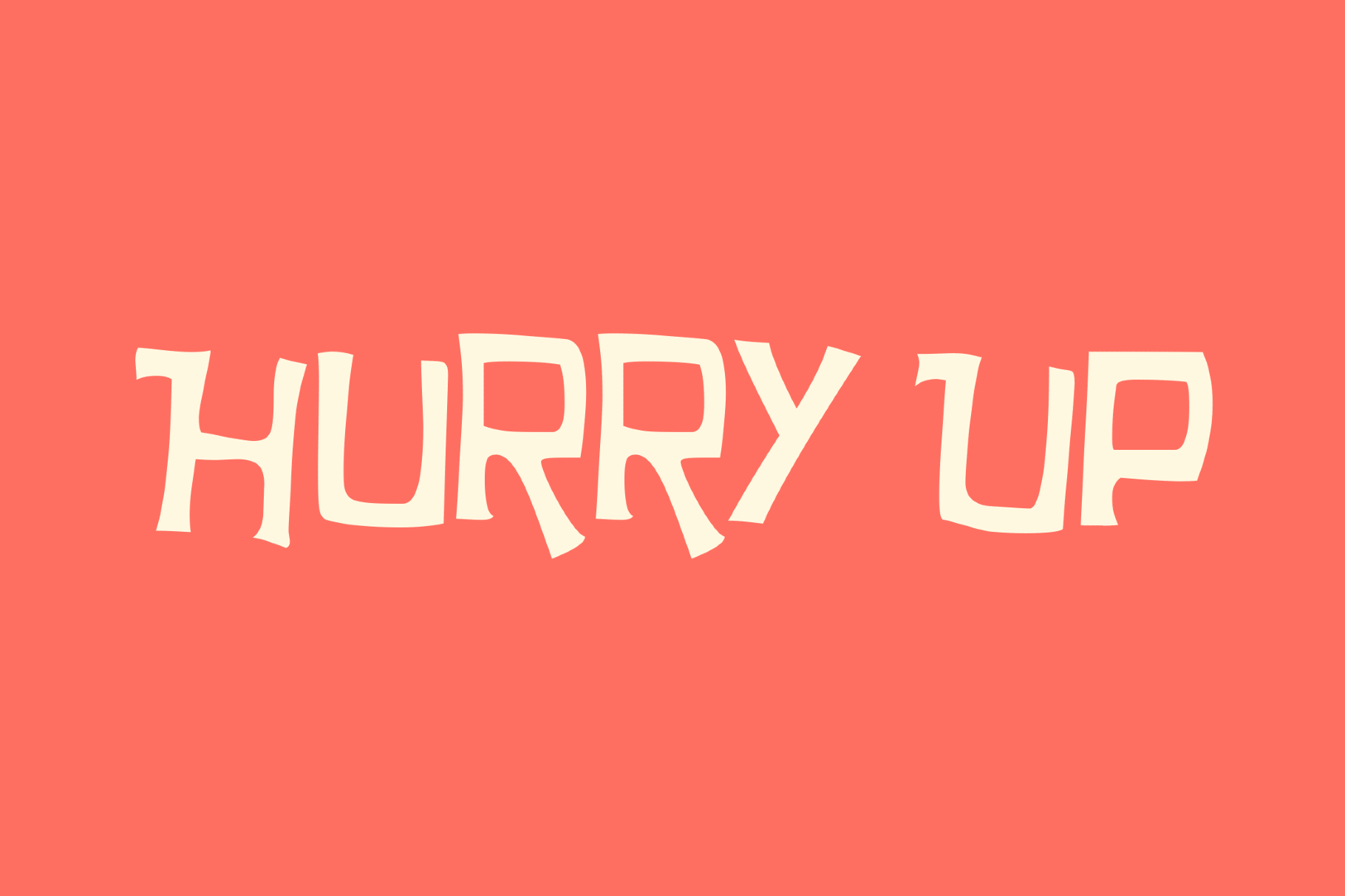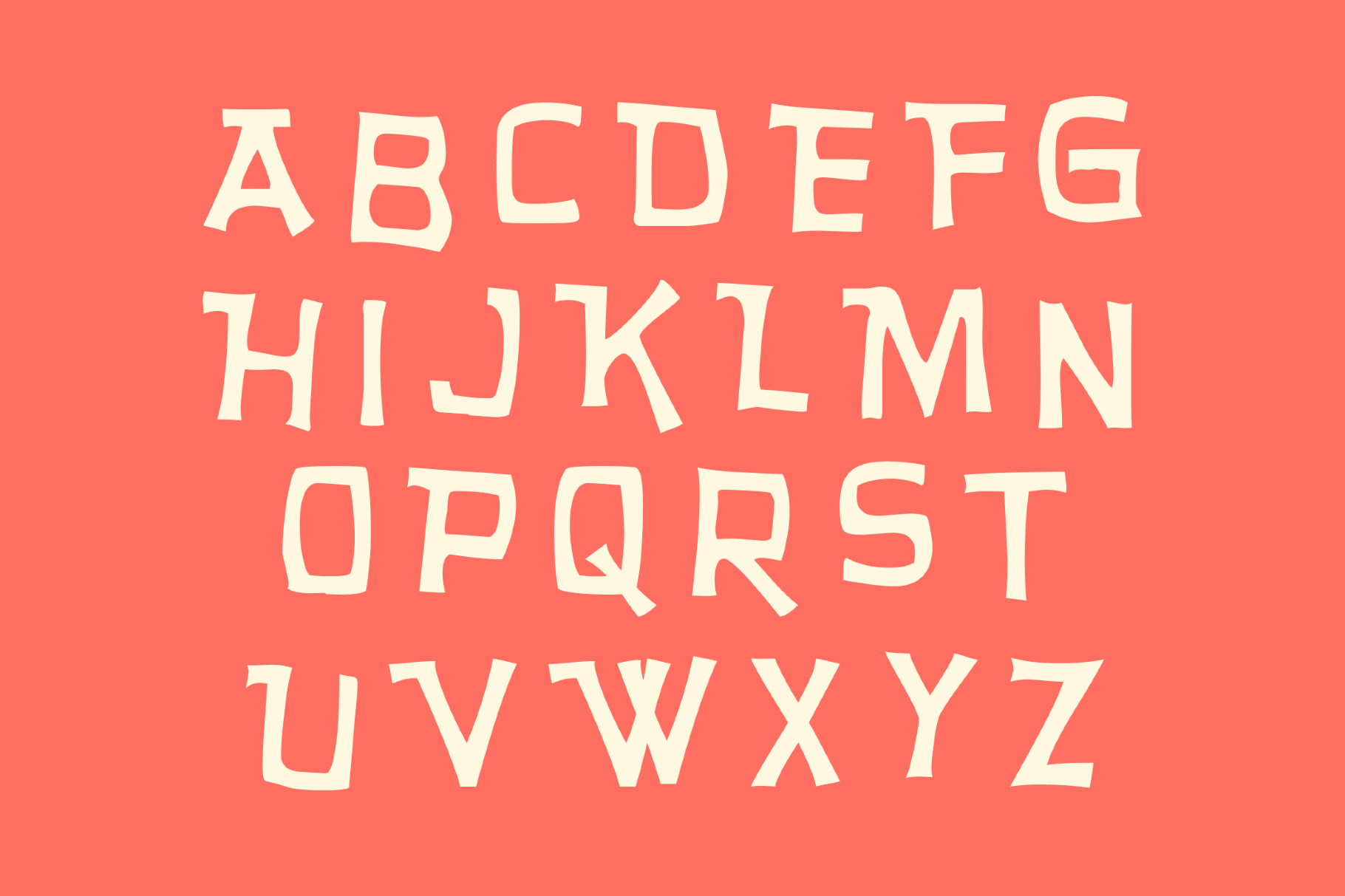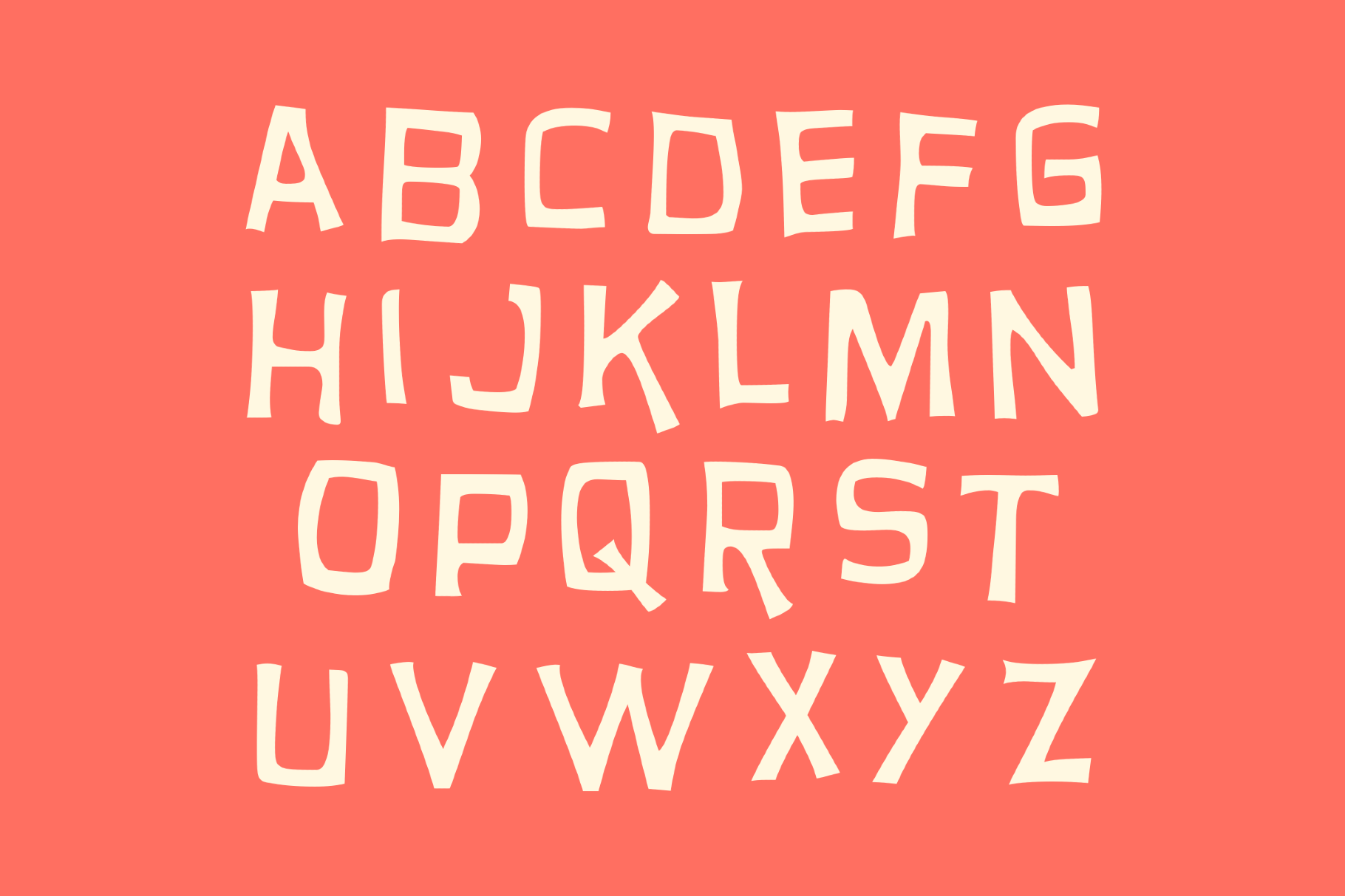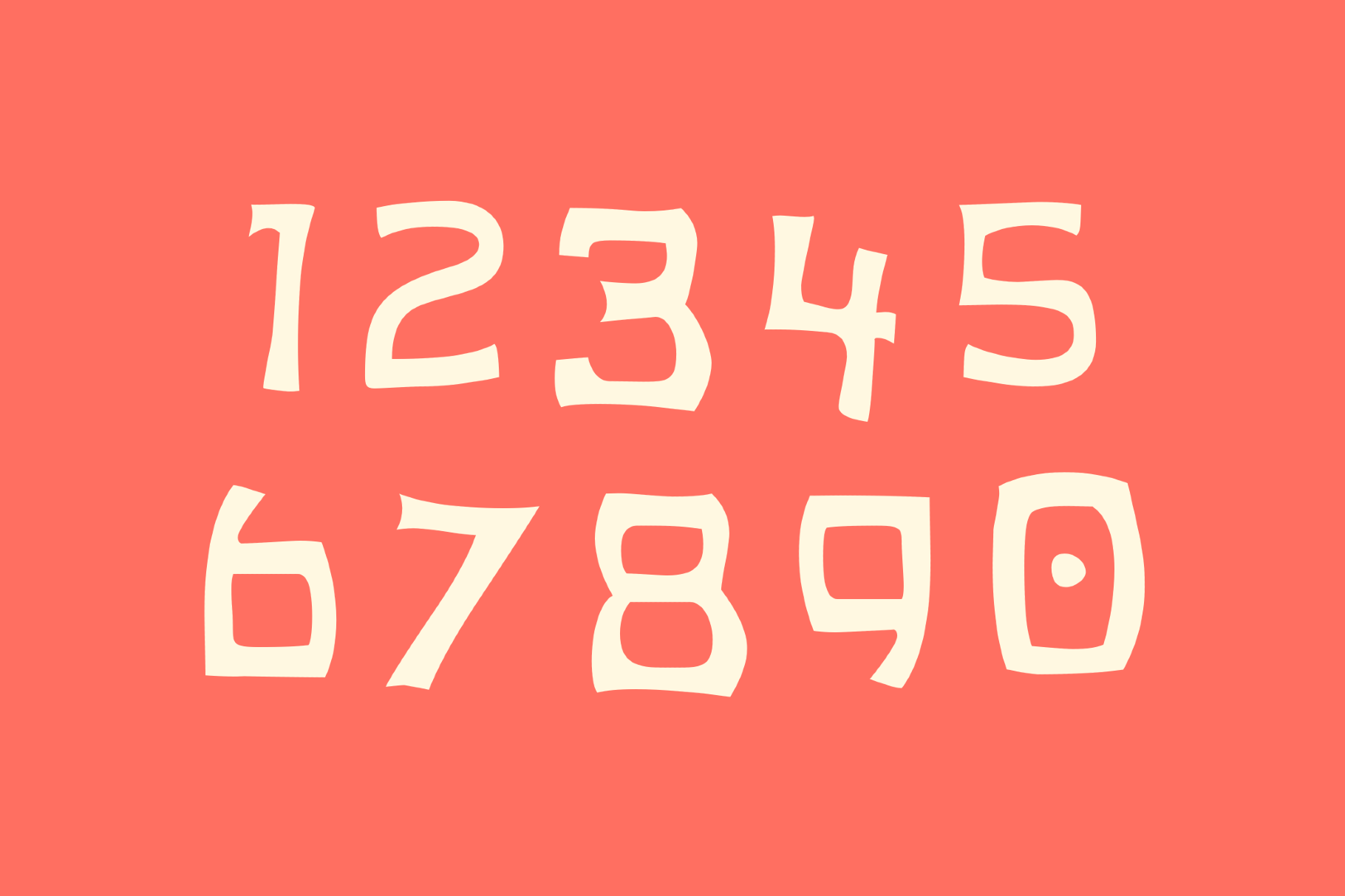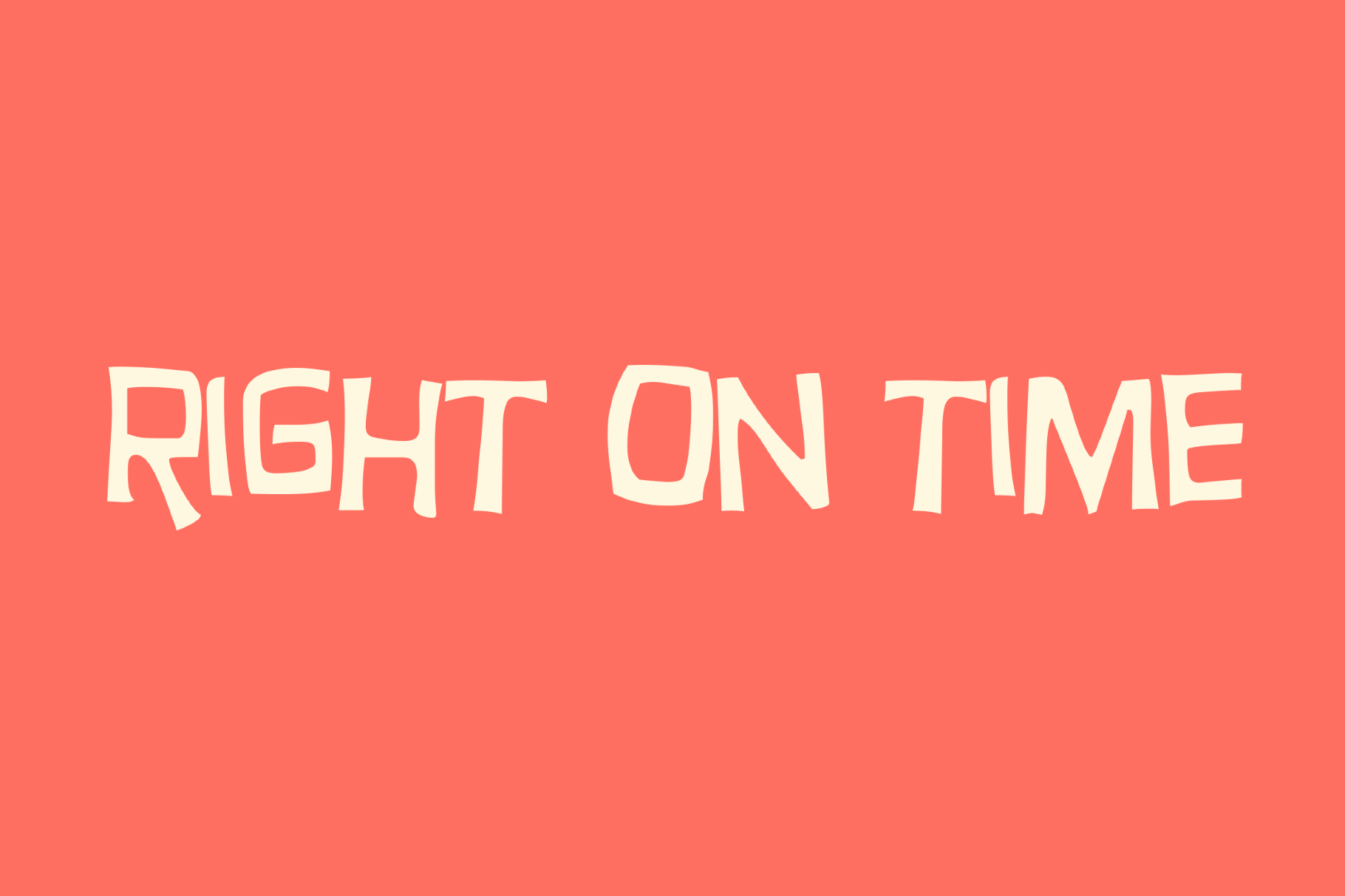
Hurry Up Font
Hurry Up is a wiry display with uneven strokes and a jumpy cadence. It feels close to cut-card lettering, outsider poster art, and photocopied zines from the 1980s. The font is best used on gig flyers, comic covers, indie game titles, sticker sheets, merch graphics, rough-edged branding and social visuals.